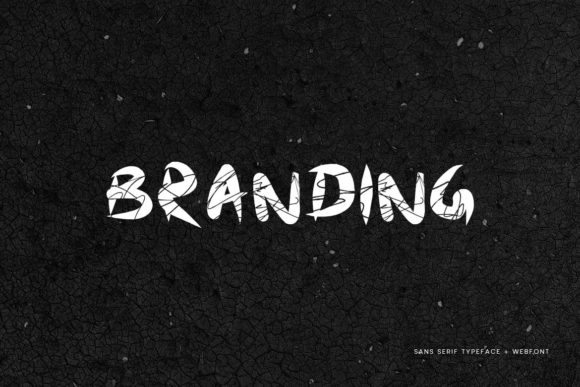
Discover the Unique Charm of Arata Font: Elevate Your Designs with its Scratchy Style
Are you tired of using the same old fonts in your designs? Look no further than Arata Font, an incredibly unique and interesting display font that’s sure to make your work stand out. Its scratchy style is ideal for logos, branding, posters, cover magazines, and so much more! In this article, we’ll dive into the world of Arata Font and explore its features, benefits, and uses.
What is Arata Font?
Arata Font is a display font that boasts a distinctive scratchy style, giving it a one-of-a-kind look that’s sure to grab attention. Its unique texture and rough edges make it perfect for designs that require a bold and edgy aesthetic. Whether you’re a designer, craftor, or simply someone who loves to dabble in creative projects, Arata Font is an excellent addition to your font library.
Key Features of Arata Font
- Unique Scratchy Style: Arata Font’s scratchy texture gives it a distinctive look that’s unlike any other font.
- Display Font: Designed specifically for display purposes, Arata Font is perfect for headlines, titles, and short text passages.
- Versatile: Use Arata Font for logos, branding, posters, magazines, and any other project that requires a bold and eye-catching font.
- Easily Readable: Despite its scratchy texture, Arata Font remains easily readable, making it perfect for designs that require both style and substance.
Benefits of Using Arata Font
So why choose Arata Font for your next design project? Here are just a few benefits of using this unique font:
- Adds Edge to Your Designs: Arata Font’s scratchy style adds a touch of edginess to your designs, making them stand out from the crowd.
- Perfect for Creative Projects: Whether you’re working on a logo, poster, or magazine cover, Arata Font is an excellent choice for creative projects that require a bold and eye-catching font.
- Enhances Branding: Use Arata Font to create a unique and memorable brand identity that sets you apart from competitors.
- Easy to Pair with Other Fonts: Arata Font pairs well with a variety of other fonts, making it easy to create a cohesive and stylish design.
Using Arata Font in Your Designs
So how can you use Arata Font in your designs? Here are a few ideas to get you started:
- Logos and Branding: Use Arata Font to create a unique and memorable logo that sets your brand apart.
- Posters and Flyers: Add a touch of edginess to your posters and flyers with Arata Font’s scratchy style.
- Magazine Covers: Use Arata Font to create eye-catching magazine covers that grab attention.
- Social Media Graphics: Add a bold and eye-catching touch to your social media graphics with Arata Font.
Tips and Tricks for Working with Arata Font
Here are a few tips and tricks for getting the most out of Arata Font:
- Experiment with Font Sizes: Arata Font looks great in a variety of font sizes, so don’t be afraid to experiment to find the perfect size for your design.
- Pair with Other Fonts: Try pairing Arata Font with other fonts to create a unique and stylish design.
- Use in Combination with Images: Arata Font looks great in combination with images, so try using it to add a bold and eye-catching touch to your designs.
In conclusion, Arata Font is an incredibly unique and interesting display font that’s perfect for designers and craftors looking to add a touch of edge to their work. Its scratchy style is ideal for logos, branding, posters, cover magazines, and so much more! With its versatility, readability, and bold aesthetic, Arata Font is an excellent addition to any font library.